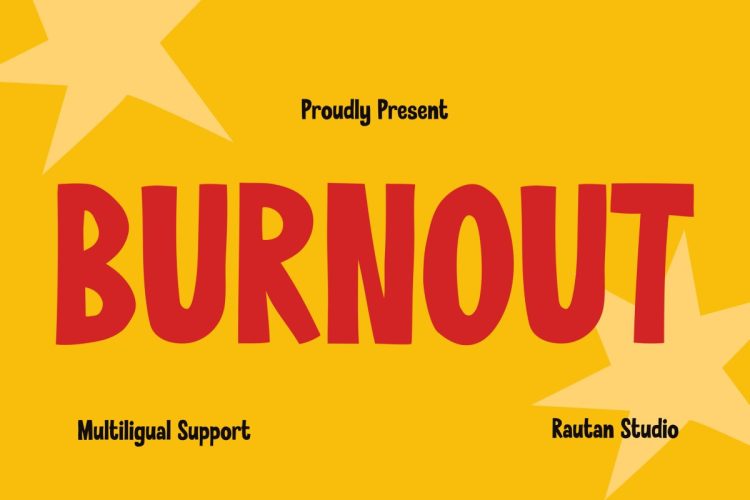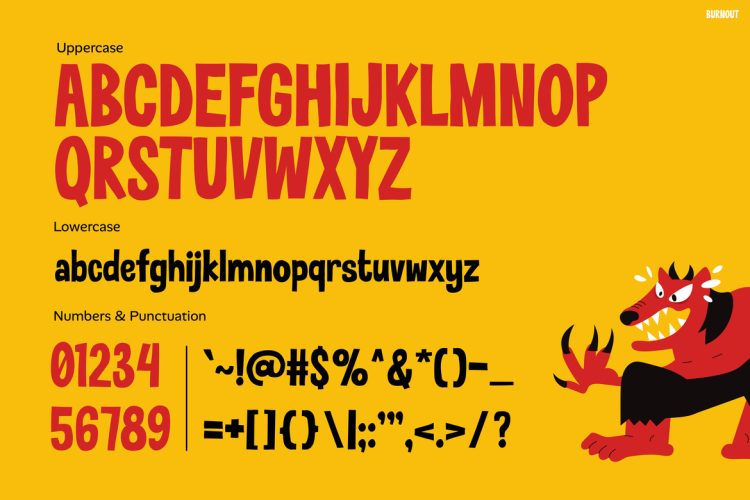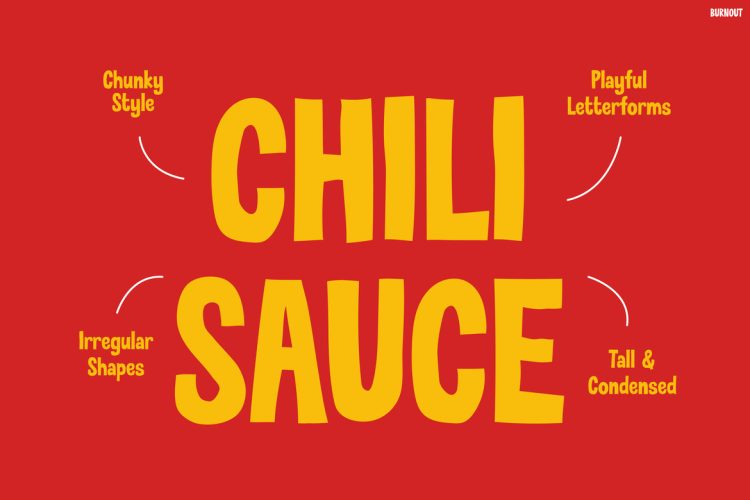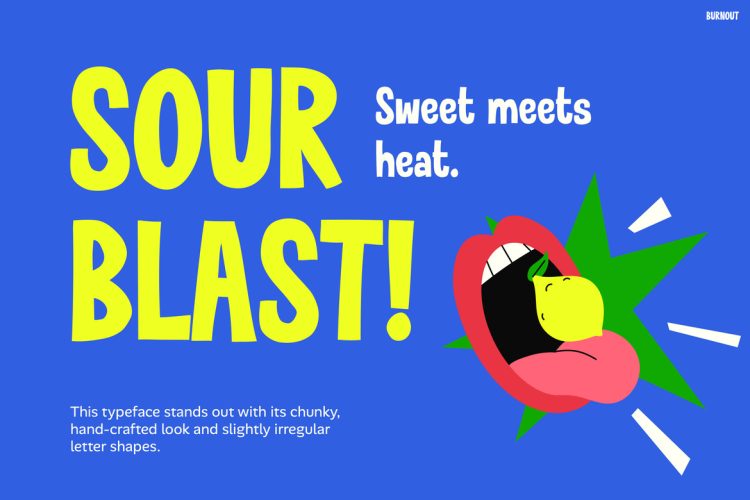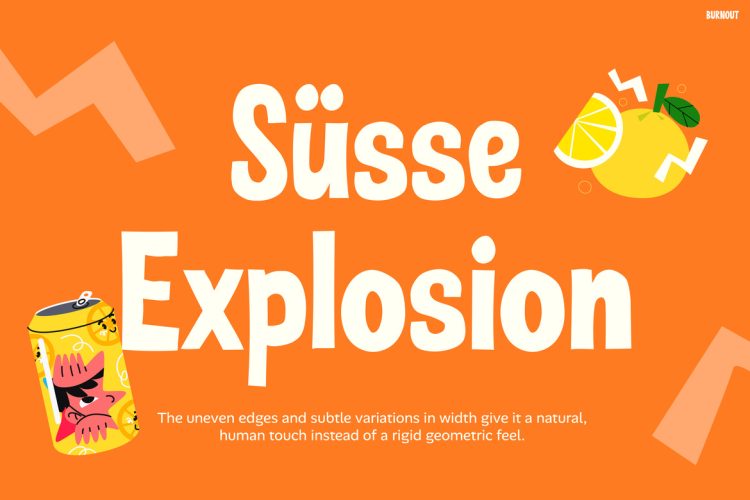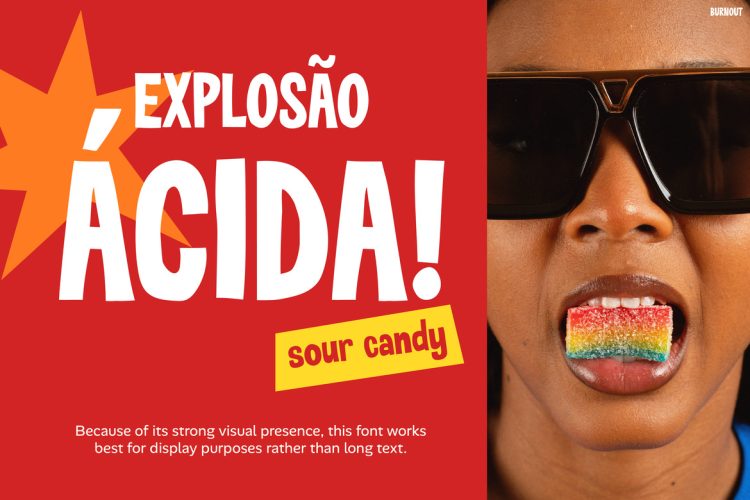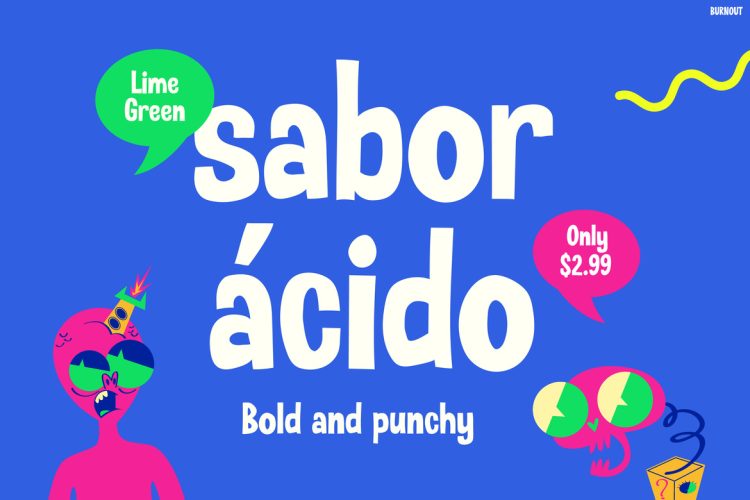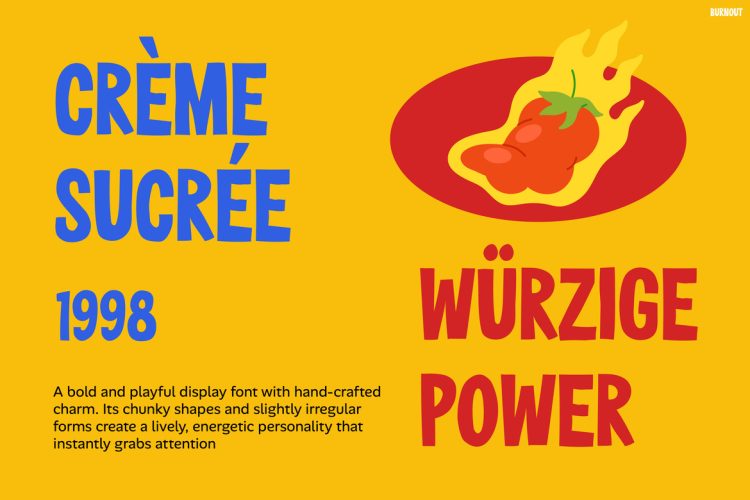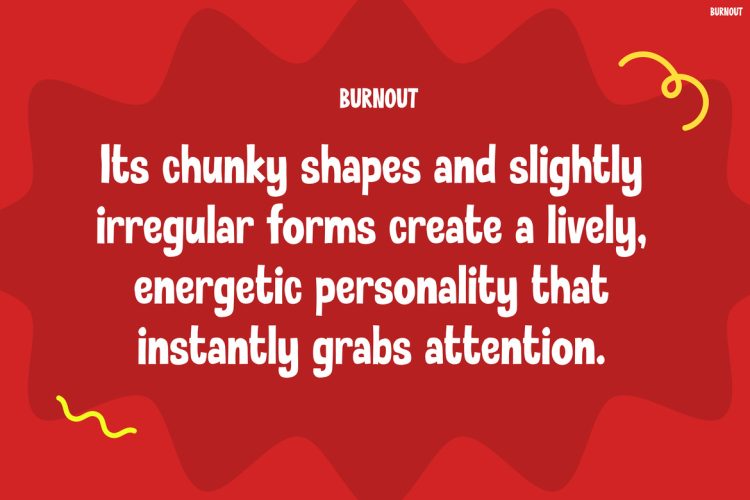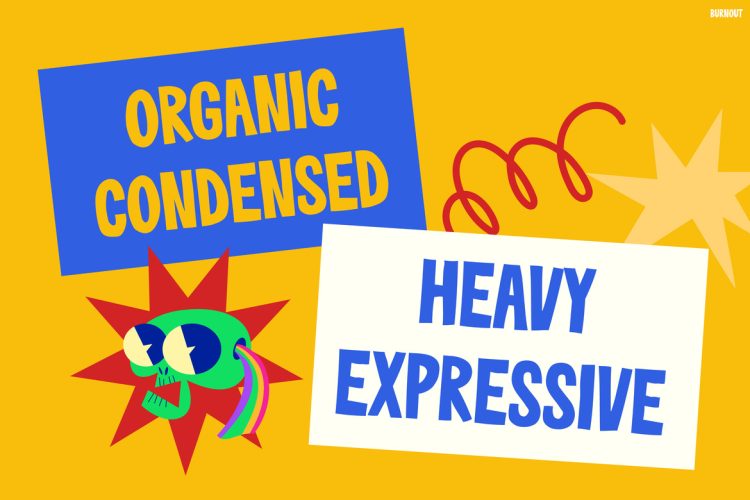
Burnout โ Wild, Bold & Playfully Expressive
Kids Font Burnout is a bold and energetic display typeface created to bring excitement and playful chaos into modern designs. Its chunky shapes, slightly irregular letterforms, and strong visual weight instantly create a loud and expressive personality. Because of its organic style, the font feels dynamic and full of movement. As a result, every headline becomes vibrant and impossible to ignore. Moreover, the playful imperfections give the typography a handcrafted and spontaneous feel. Kids Font Burnout is perfect for designs that need energy, color, and a strong visual punch. In addition, the font supports 67 languages, allowing designers to create fun and expressive designs for audiences around the world.
Kids Font Burnout is a playful cartoon-style display font built with bold shapes and lively character. The thick strokes and condensed structure help the text stand out clearly in colorful layouts. At the same time, the slightly irregular forms add personality and creative energy.
Furthermore, Burnout works perfectly for projects that require a strong and fun visual identity. For example, it looks fantastic on snack packaging, spicy food branding, street posters, playful advertisements, and youth-focused campaigns. In addition, the expressive style makes it ideal for digital graphics, social media content, and vibrant branding designs.
Kids Font Burnout is ideal for graphic designers, illustrators, branding studios, and creative businesses that want typography with strong personality. It works especially well for kids brands, snack packaging, spicy food labels, cartoon posters, playful logos, festival graphics, and bold social media content.